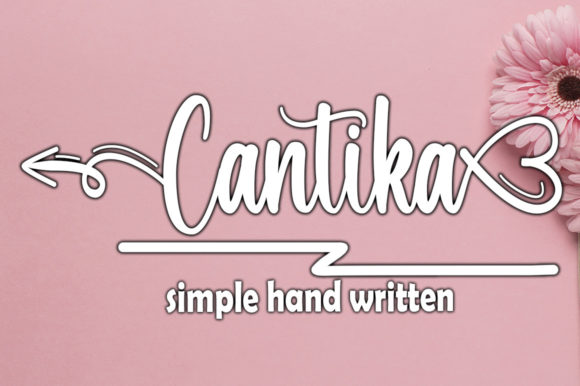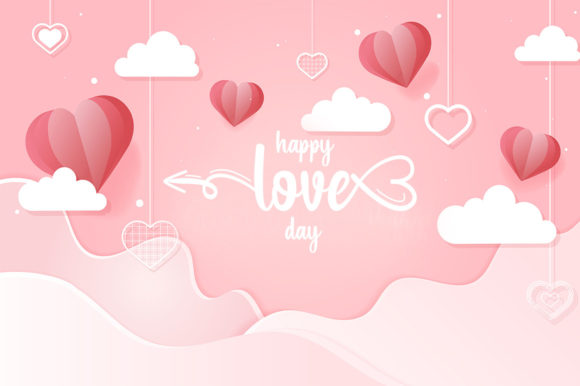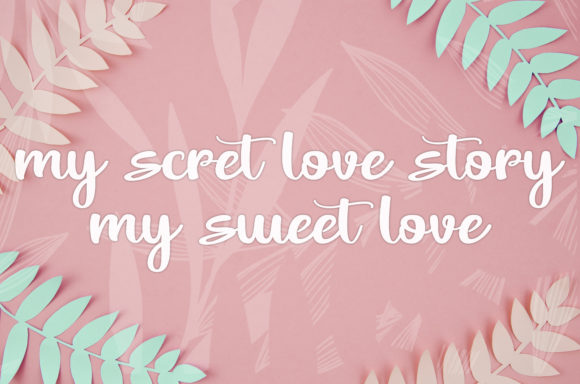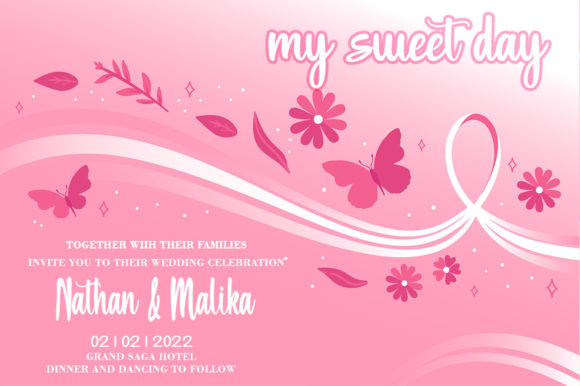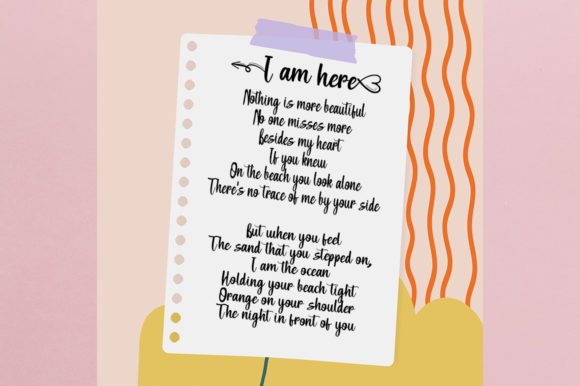
Cantika Font
About Cantika Font
Cantika is a beautiful and refined script font. It is PUA encoded which means you can access all of the glyphs and swashes with ease!